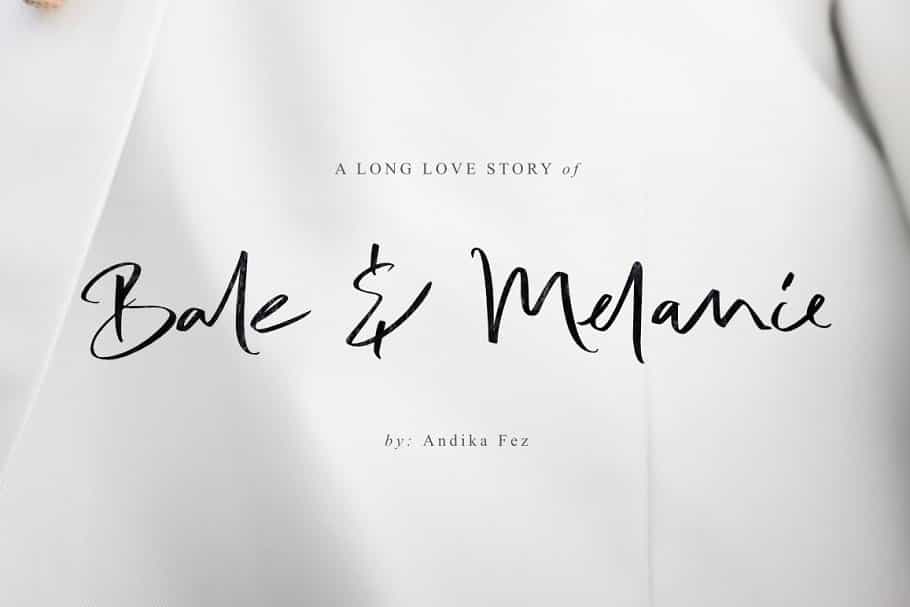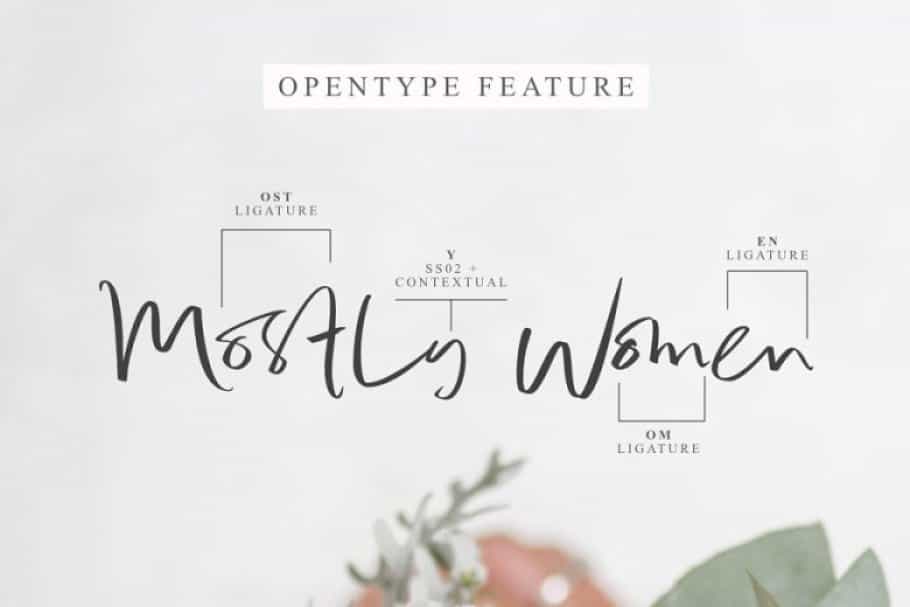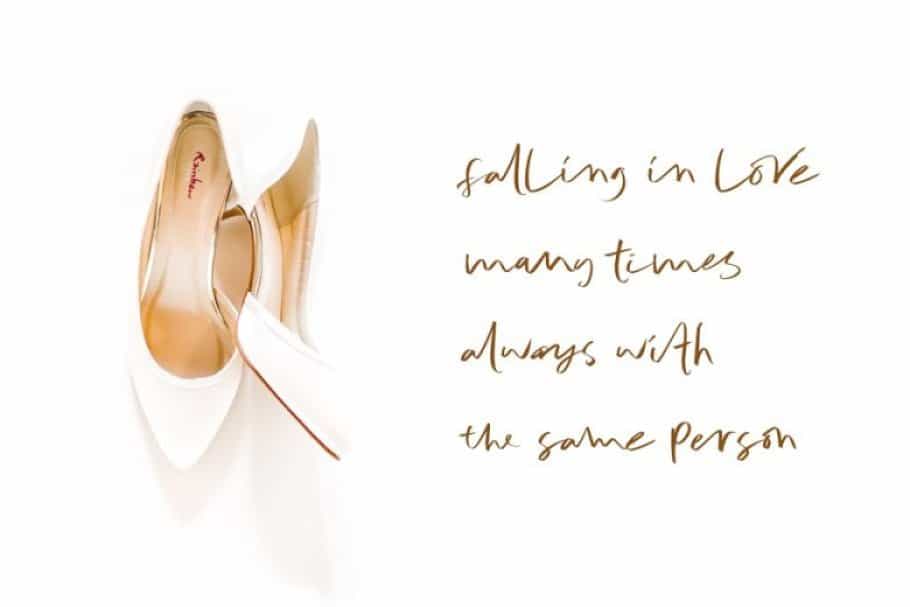
Discover Bale & Melanie Script Font, part of the Brush Calligraphy Comic collection—a versatile and unique font perfect for adding a personal touch to your projects. Download it for free and enjoy crafting designs with style, from invitations to social media posts. This font is available exclusively for personal use, giving you the freedom to create without limits. Unlock your creativity with Bale & Melanie Script Font today!
Introducing Bale & Melanie Font. Bale & Melanie is just perfect for any creative project such as wedding invitation, headline, product promotion or branding and many more. This is the demo version which was created for you to see how this font looks in your projects.